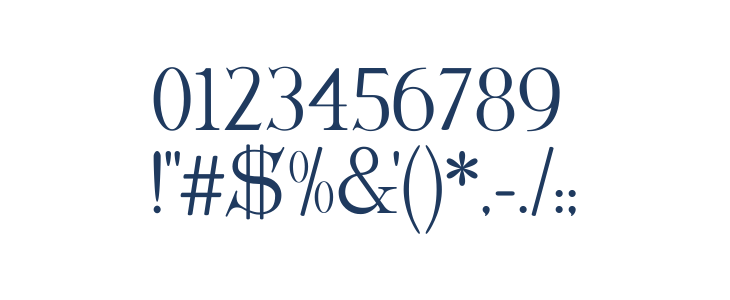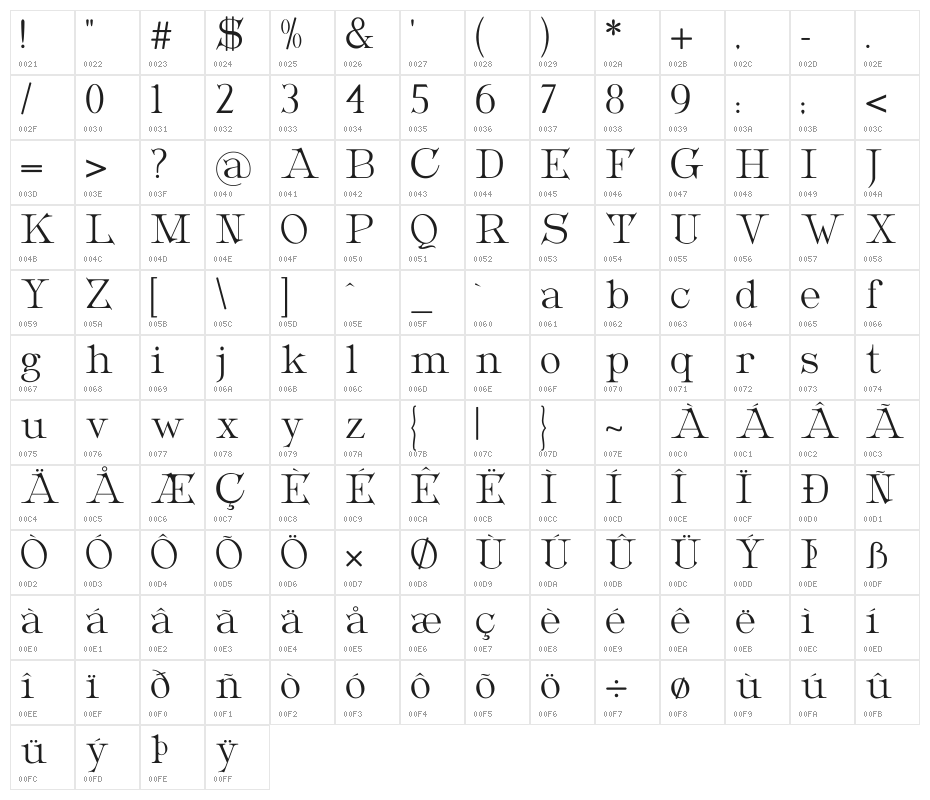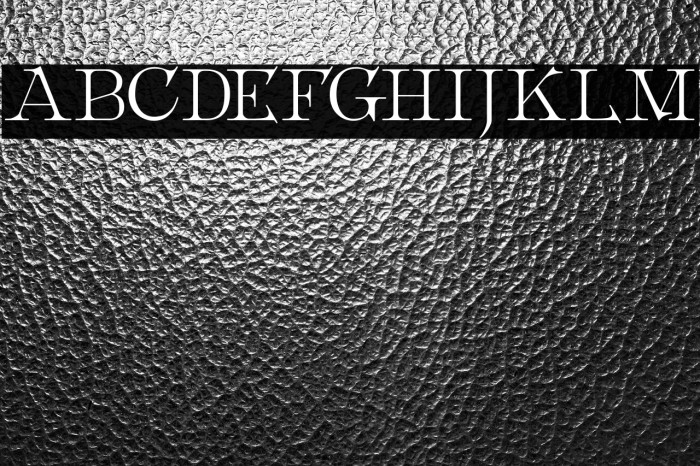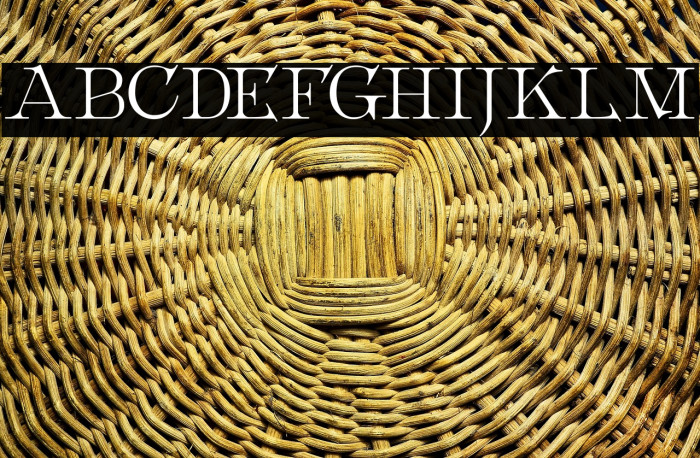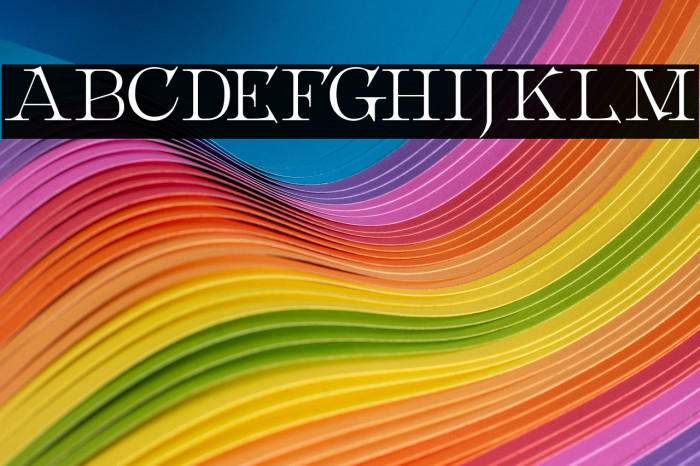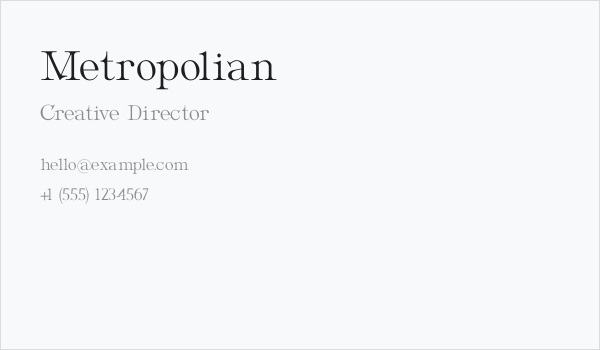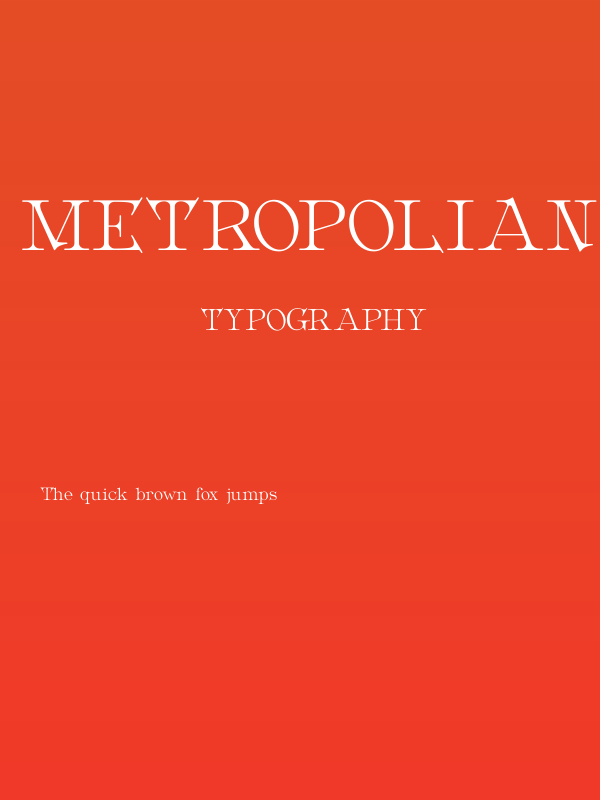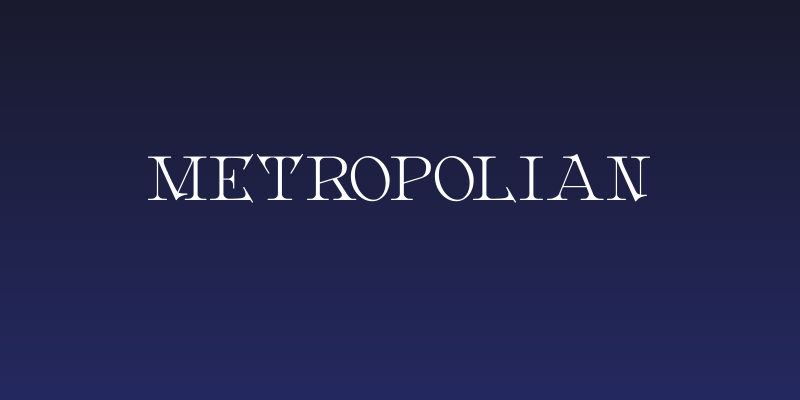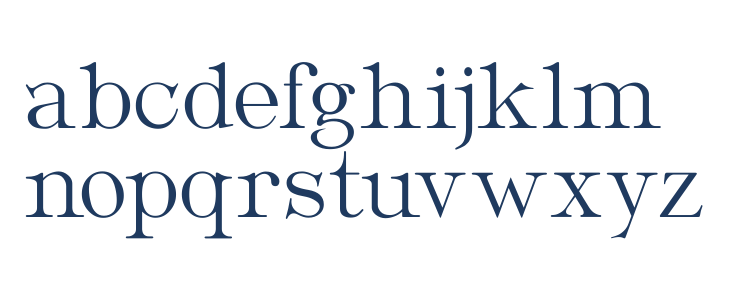
Metropolian Font
Metropolian Description
This font features a classic serif style with elegant, sharp serifs that give it a sophisticated and timeless appearance. The uppercase letters are bold and commanding, while the lowercase letters maintain a graceful flow. The numerals are distinct and clear, making them easily readable. Special characters are designed with the same attention to detail, ensuring consistency throughout. The overall design is balanced, with a medium contrast in stroke thickness that adds to its readability and aesthetic appeal. This font is versatile, suitable for both formal and creative projects.